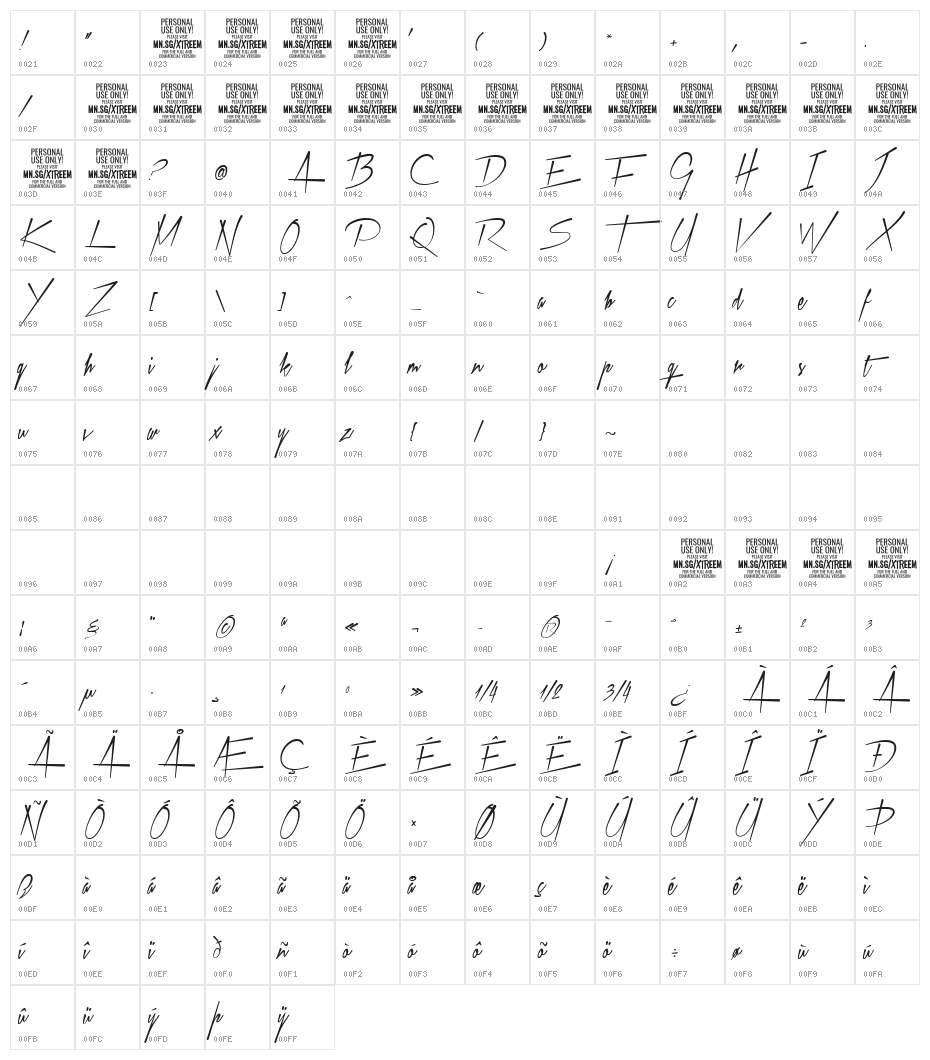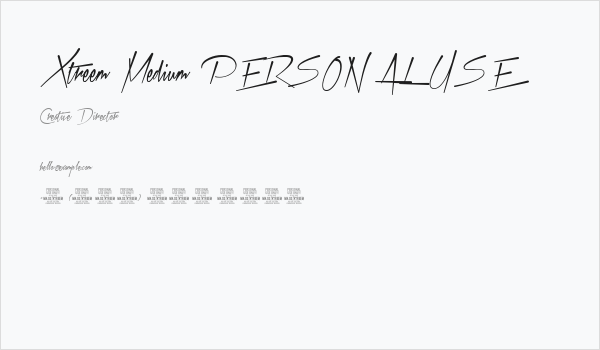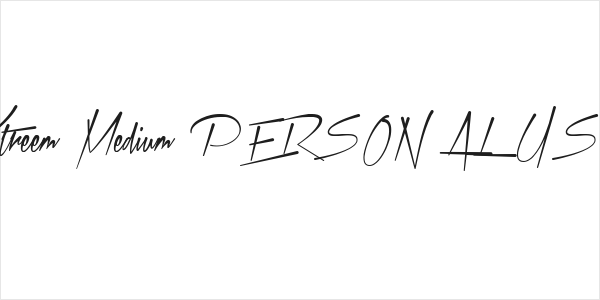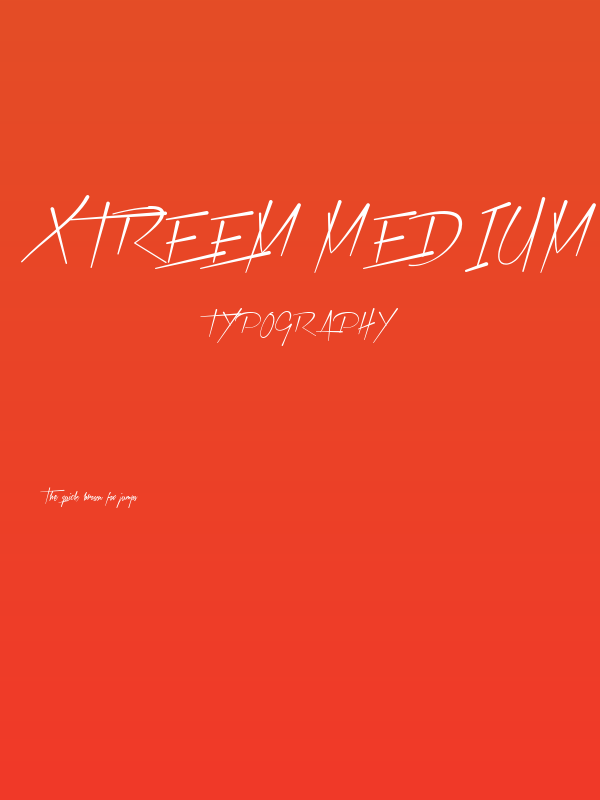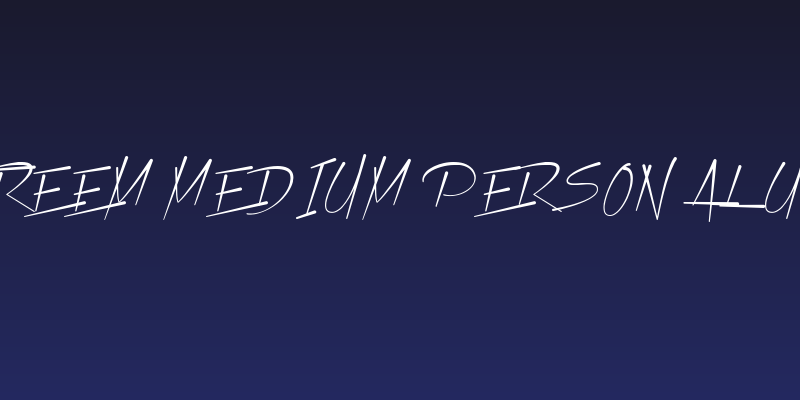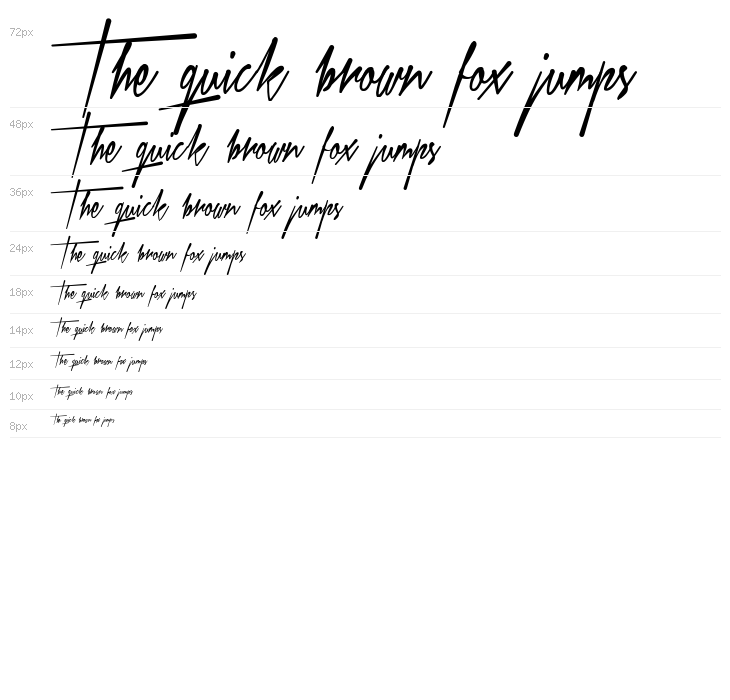
Xtreem Medium PERSONAL USE Font
Xtreem Medium PERSONAL USE Description
This font features a dynamic and energetic style with a handwritten appearance. The uppercase letters are elongated and slightly slanted, giving a sense of movement and fluidity. The lowercase letters maintain a consistent slant, with some characters featuring unique loops and curves that add to the font's expressive nature. The numerals and special characters are designed to match the overall aesthetic, with a playful yet sophisticated look. This font is ideal for projects that require a personal touch or a creative flair, such as invitations, branding, or artistic designs.
| Use Case | Headlines, Logos, Artistic designs |
| Proposed Projects | Ideal for invitations, branding, artistic designs, and creative projects. |